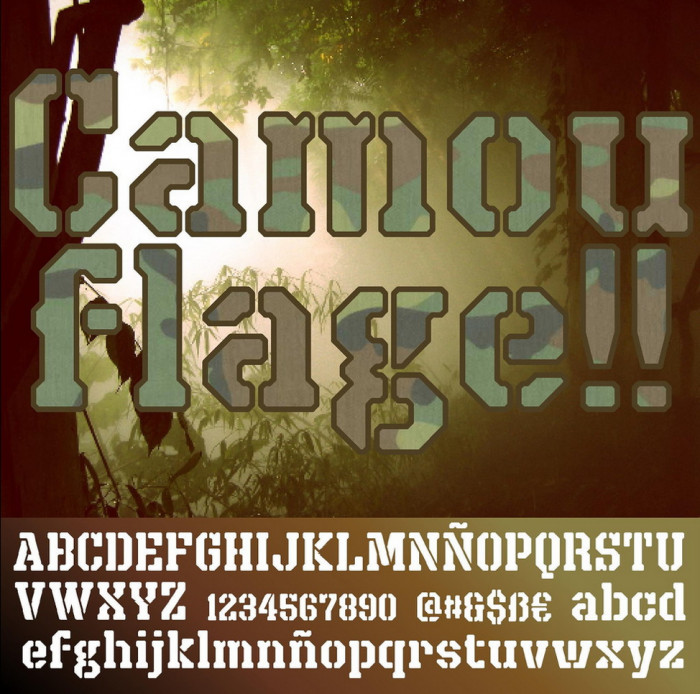
Another stencil font, this time very "rocky". Hope you like it.
Very “colonial marines”! Very 10/10! :-)
Professional and creative, even the name )
Rock solid. 10/10
This is excellent. I love the edged corners. It gives it a rough appearance. I'm a big fan of stencil fonts, and this one makes the grade without question. Concise and very high usability. 10/10.
It's crazy how you are prolifique with realy good design as well
Bravo mon ami!
Making something normal but different is exceedingly hard. You are getting very good at this font-making thing.
Beautifully crafted. 10/10
It doesn't seem so long ago that you were producing your 'apprentice pieces' ... now you are a fully formed master of your craft.
At least up there with one of the best stencil fonts that I've seen!
Very impressive!
Some glyphs and diacritics updated.